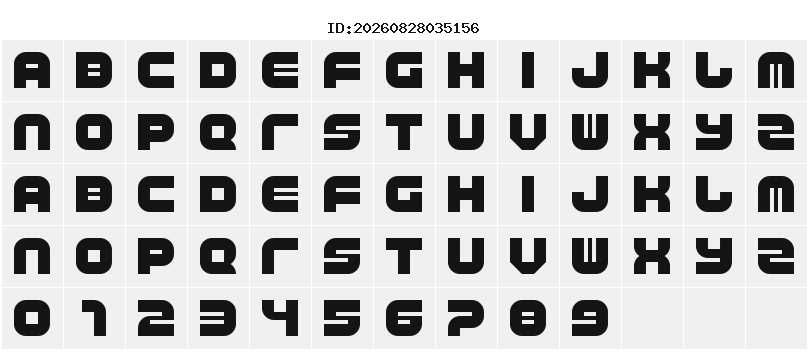
• Font Name: Trip Trap
• Designer: Andrew McCluskey
• Description: ‚ÄúTrip Trap‚Äù was built with FontStruct
About Trip Trap.ttf
Trip Trap.ttf is a modern, elegant sans-serif font designed for ultimate readability and visual harmony. Perfect for branding, headlines, web design, and print materials.